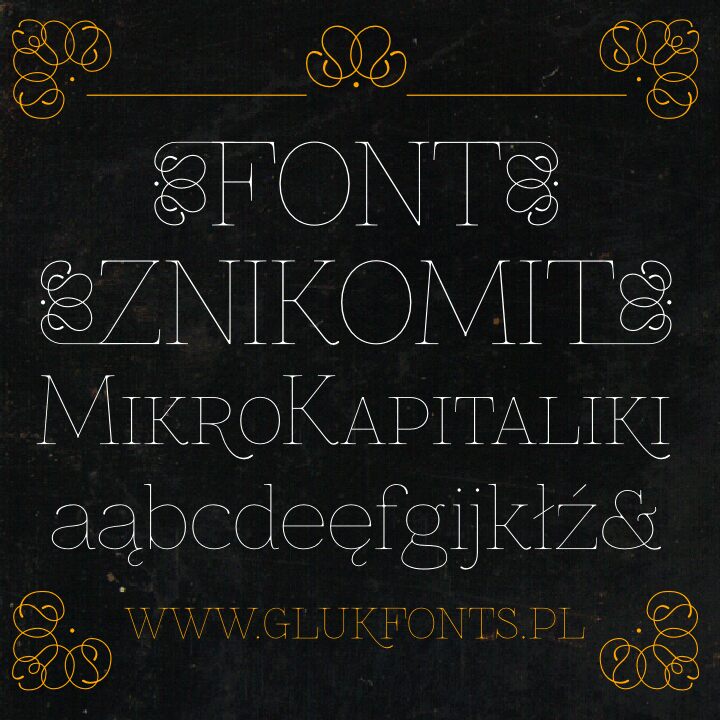
Znikomit by gluk is a free high-contrast serif font with the poised, elongated look of fashion editorial lettering. Its very fine hairlines meet narrow, sweeping curves, and the tall forms keep the page feeling airy. Broad round letters introduce a softer pace beside the more upright shapes.
Fashion magazines and luxury packaging can use its refined proportions to suggest elegance, while cultural posters and event programs benefit from the crisp, theatrical scale of the lettering. The long curves and needle-thin strokes can echo garment silhouettes or fine line illustration, making the type part of the visual theme rather than a neutral caption.
22 October 2014 — Version 0.55 includes ZnikomitSC (SmallCaps) as a separate font.
Znikomit